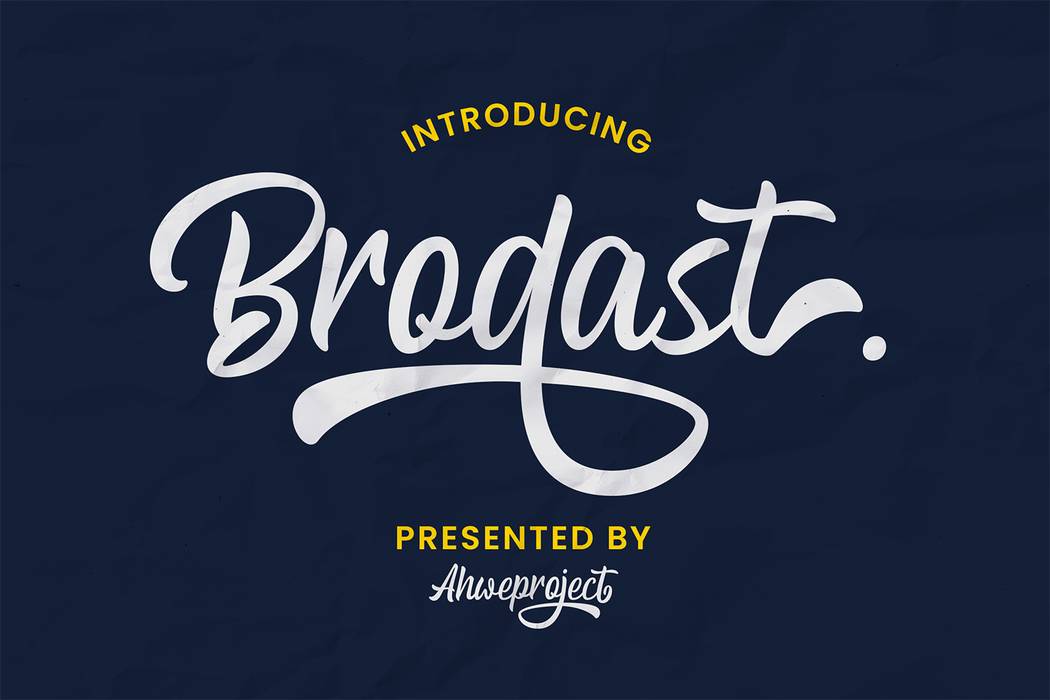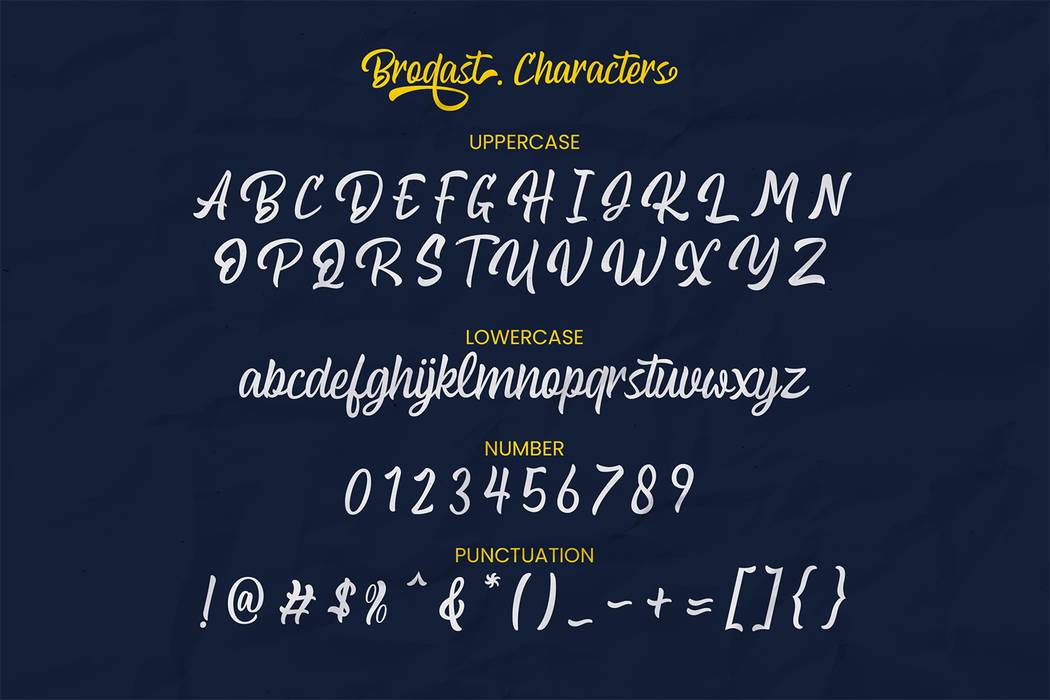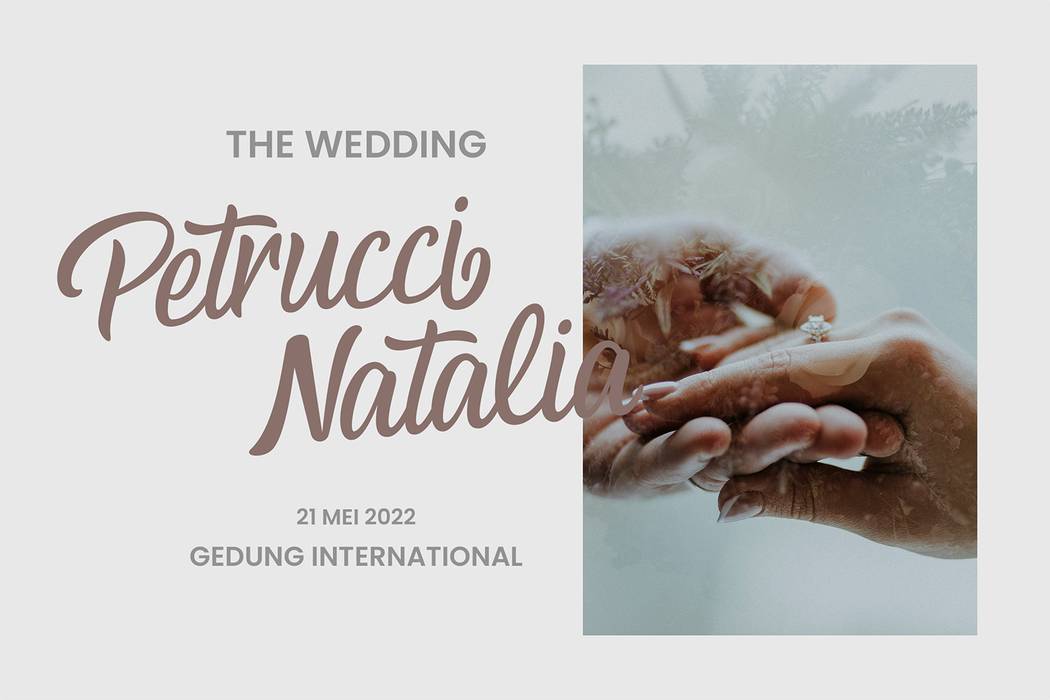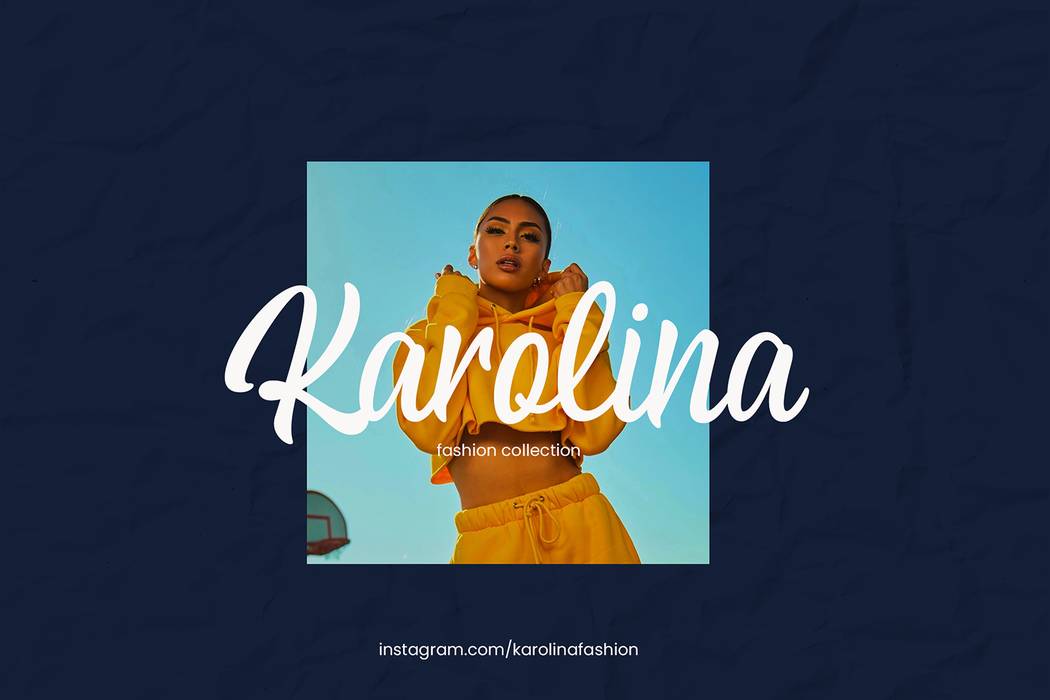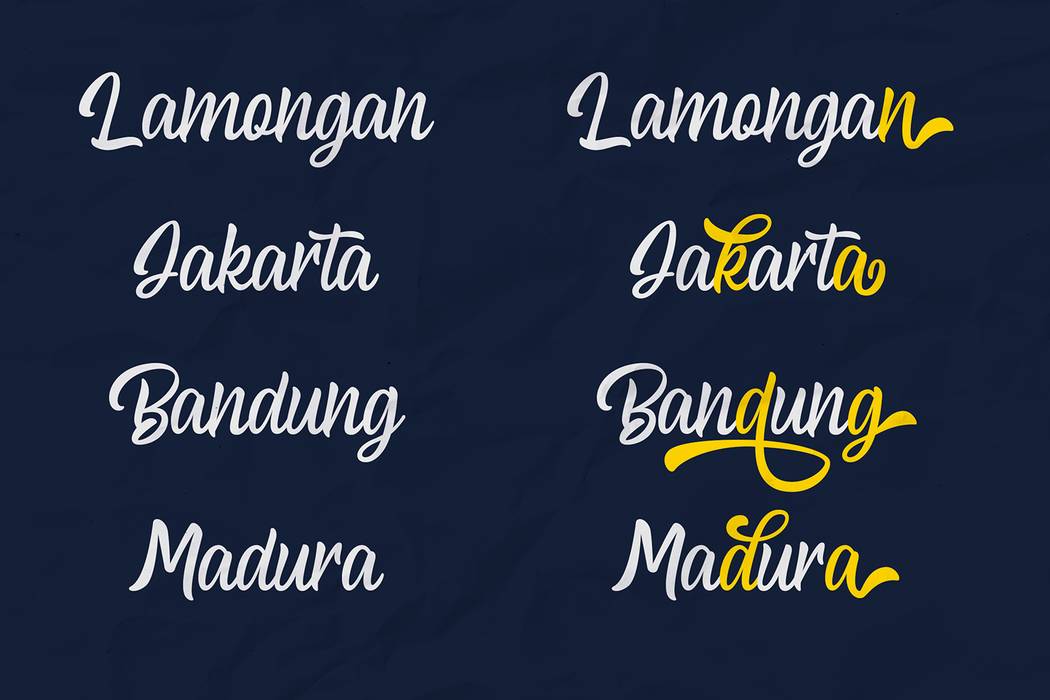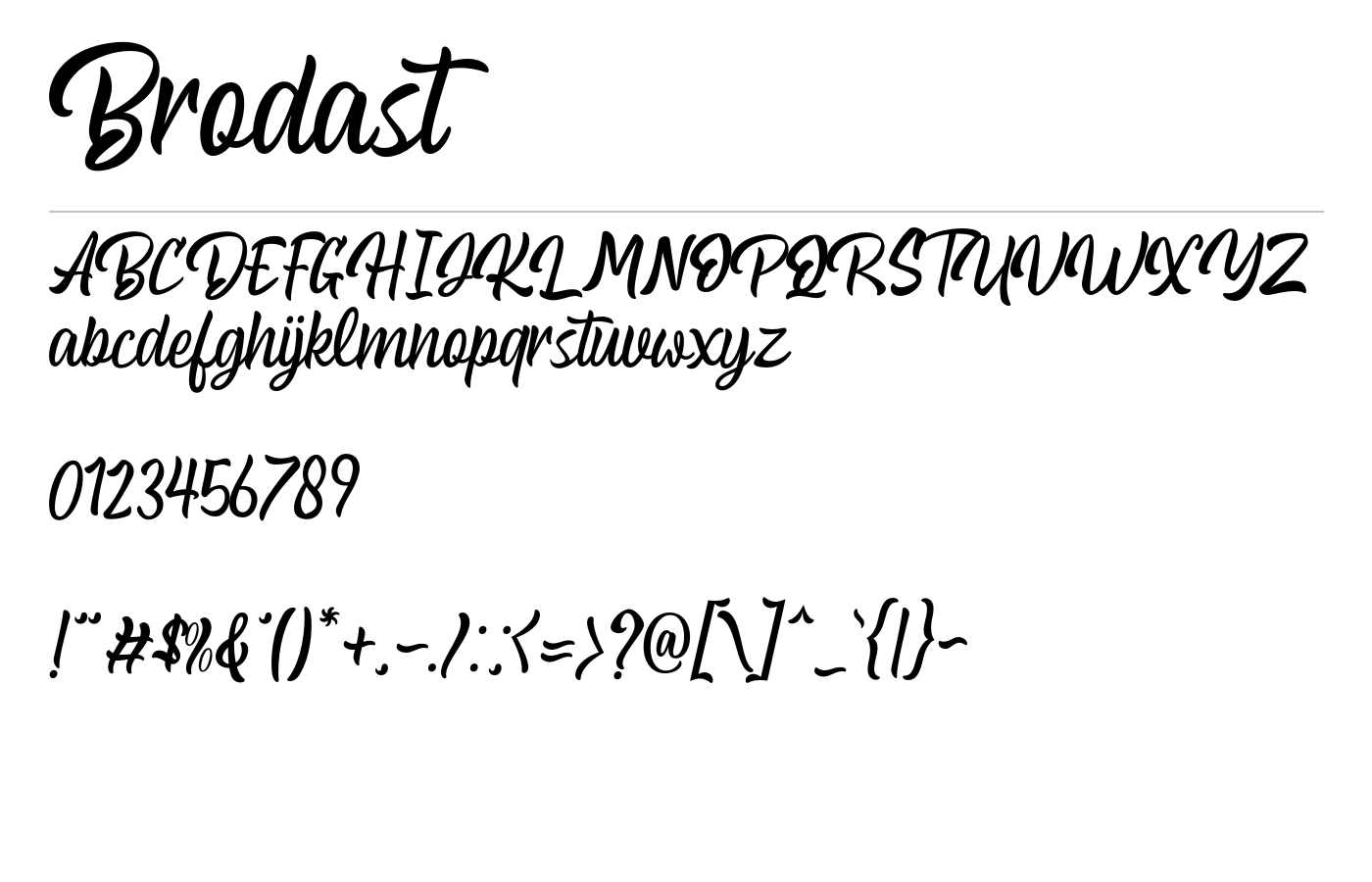
Brodast is a lively and casual script font that features smooth, flowing strokes with moderate contrast, giving it a friendly and approachable feel. Its slightly condensed letterforms and elegant curves make it perfect for branding, invitations, and creative headlines where a personal, hand-crafted touch is desired. This font adds warmth and personality while maintaining readability, ideal for projects that want to convey charm and style.
Brodast Font
About Brodast Font
| Font family | Brodast Font |
| Release date | 2021-07-18 |
| Designer | Dida Ahluddin |